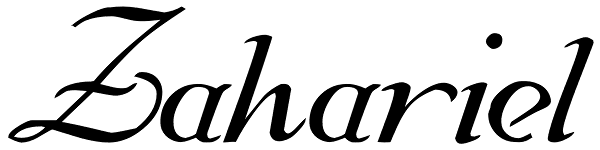
Zahariel
Zahariel is a stylish script font based on samples of turn of the century calligraphy. It has a different, cleaner look in comparison with many of our other script fonts, and features alternate versions of many of the lower case characters.